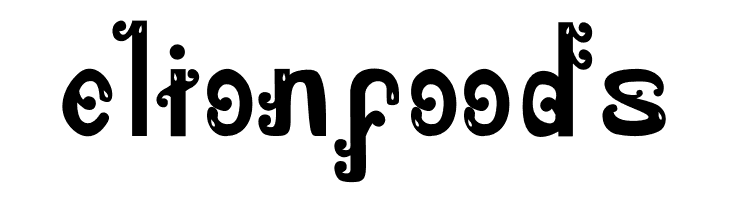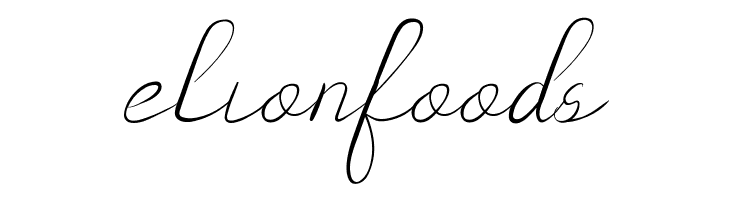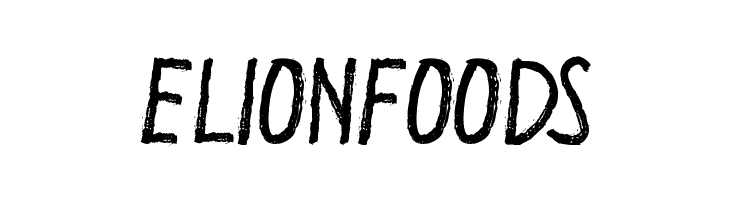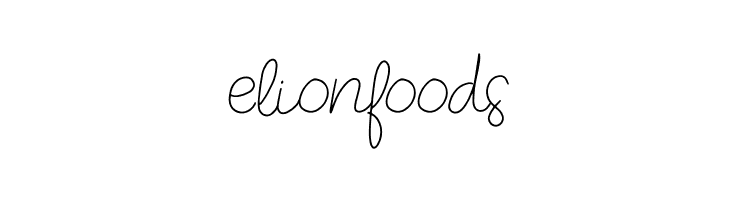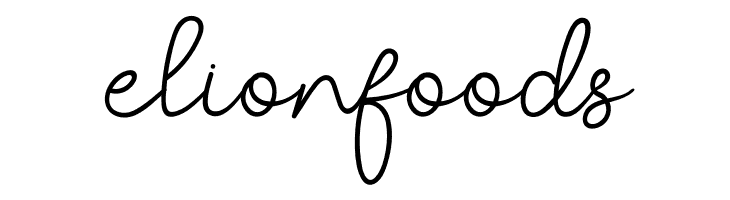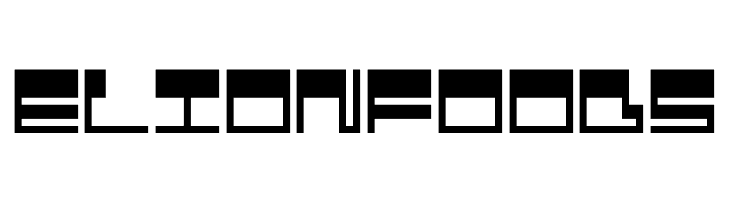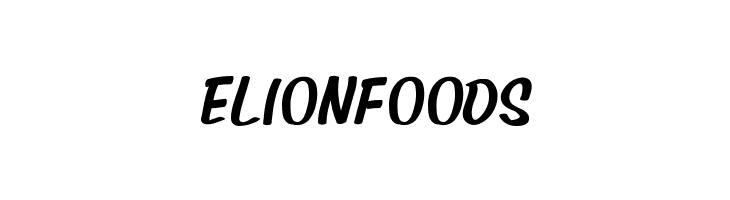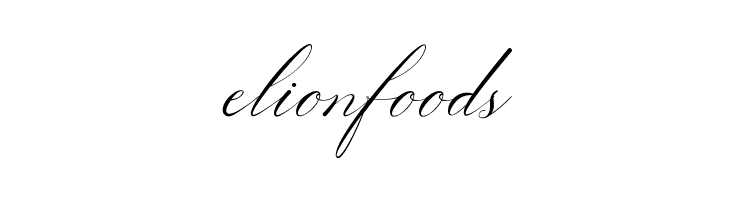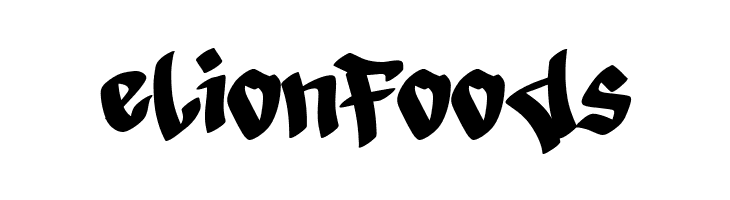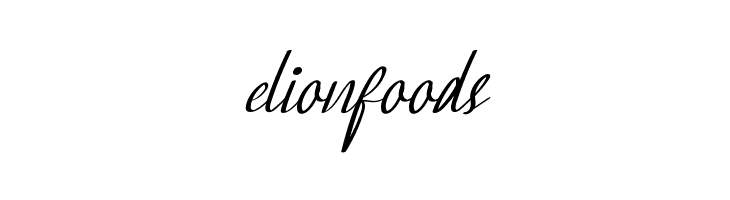
Elegant cursive handwritten font.
A bold, playful font with a quirky, hand-drawn style.
A stylish and flowing script font with elegant cursive strokes.
A bold, expressive handwritten font with fluid, sweeping strokes.
An elegant, flowing script font with intricate loops and swirls.
A bold, modern sans-serif font with clean lines and geometric structure.
A modern, high-contrast font with elegant, elongated characters.
A bold, geometric font with a futuristic and digital aesthetic.
An elegant script font with intricate swashes and flowing letterforms.
A bold, dynamic font with a modern and energetic style.
A bold, brush-style font with dynamic and expressive strokes.
A lively, cursive font with a fluid, handwritten style.
A playful, elegant script font with a handwritten style.
A bold, playful handwritten font with thick strokes and rounded edges.
A dynamic, flowing script font with elegant, cursive strokes and a slight italic slant.
A bold, elegant script font with flowing, cursive letterforms.
A flowing, elegant script font with intricate loops and flourishes.
An elegant script font with flowing, interconnected letters and high contrast strokes.
A bold, dynamic script font with a flowing, cohesive style and three-dimensional effect.
A playful and elegant script font with flowing, cursive letterforms.
A bold, hand-drawn font with a textured, artistic style.
A decorative font with ornate curls and embellishments.
A playful, handwritten font with a friendly and approachable style.
An elegant, flowing script font with delicate, natural handwriting style.
A charming, fluid handwritten script with elegant, flowing characters.
A playful, casual handwritten font with smooth, flowing lines.
A flowing, elegant cursive font with dynamic curves and artistic flair.
A playful, rounded font with smooth curves and consistent thickness.
A bold, modern sans-serif font with clean lines and rounded edges.
Distressed, bold display font with jagged, horror-inspired forms.
Bold, angular display font with a graffiti and sci-fi vibe.
A bold, angular font with a dynamic and edgy style.
A playful, bold handwritten font with rounded strokes and an informal style.